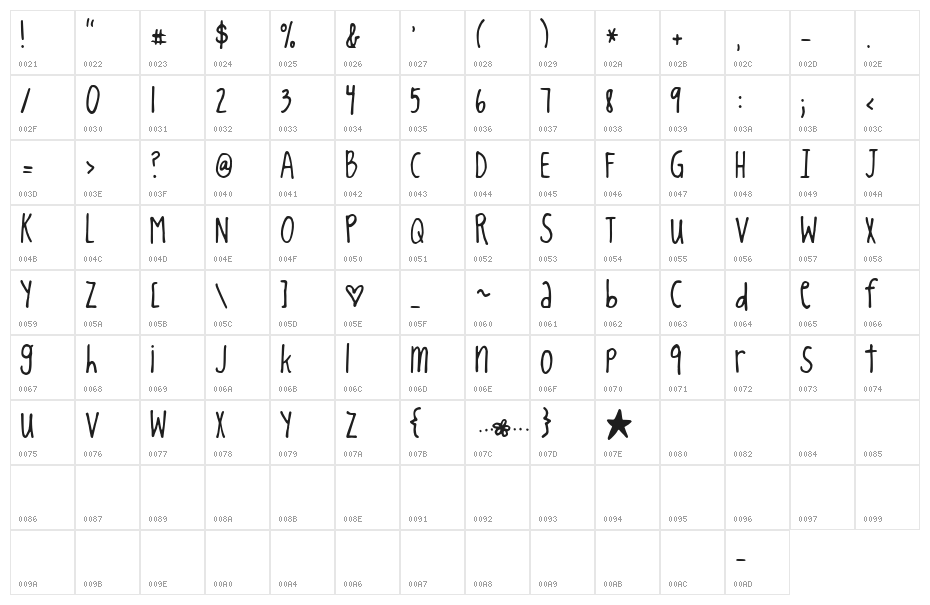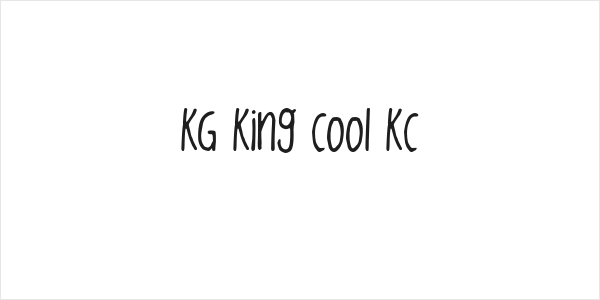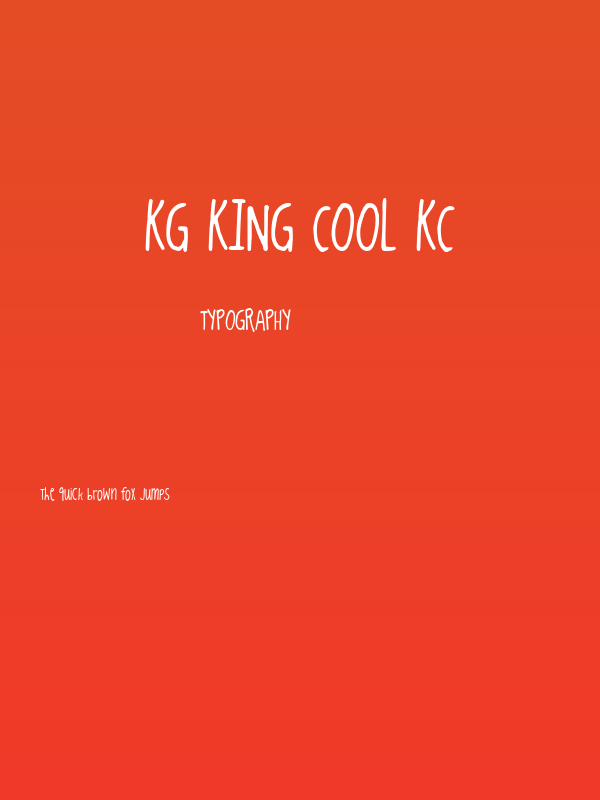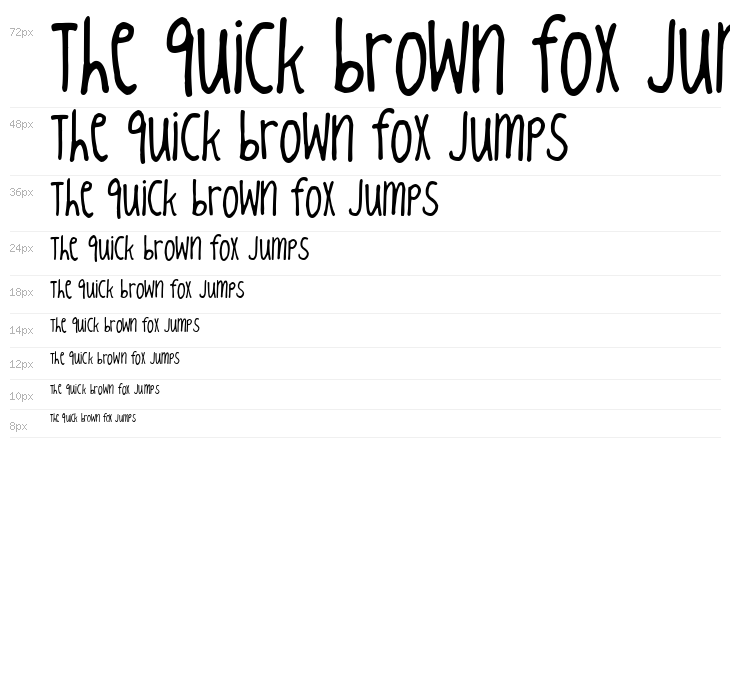
KG King Cool KC Font
KG King Cool KC Description
This font features a playful and informal handwritten style, characterized by its irregular, slightly wavy lines and casual appearance. The letters are tall and narrow, with a consistent stroke width that gives it a uniform look. The uppercase and lowercase letters maintain a cohesive style, while the numerals and special characters blend seamlessly with the overall design. The font exudes a friendly and approachable vibe, making it suitable for creative and informal projects.
Overall StyleCasual
Use CaseHeadlines, Logos, Informal Text
Proposed ProjectsIdeal for children's books, greeting cards, playful branding, and social media graphics.